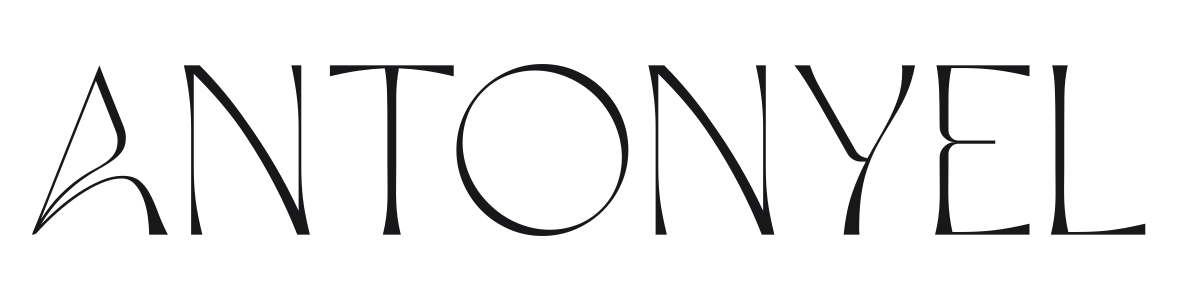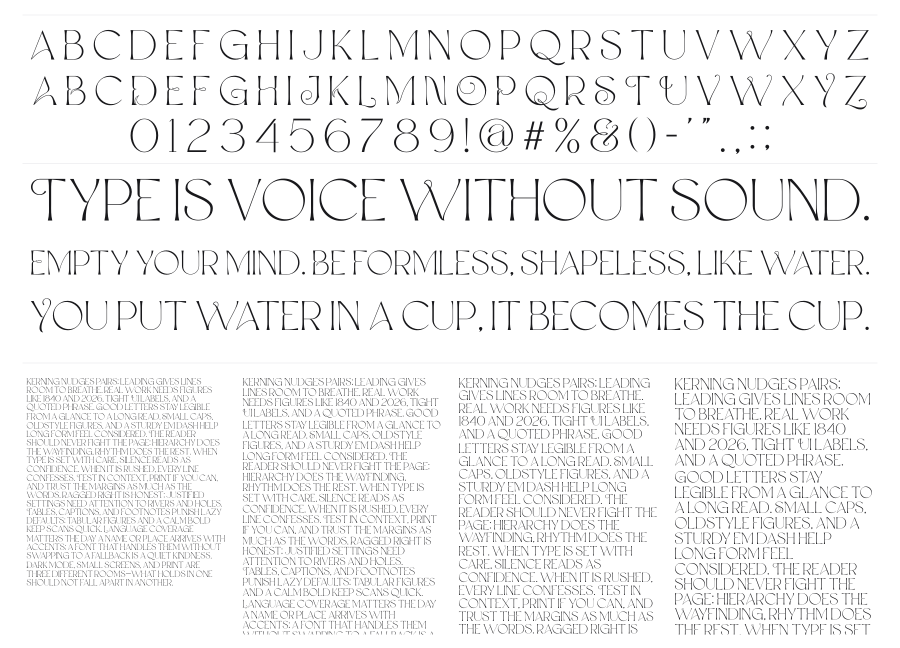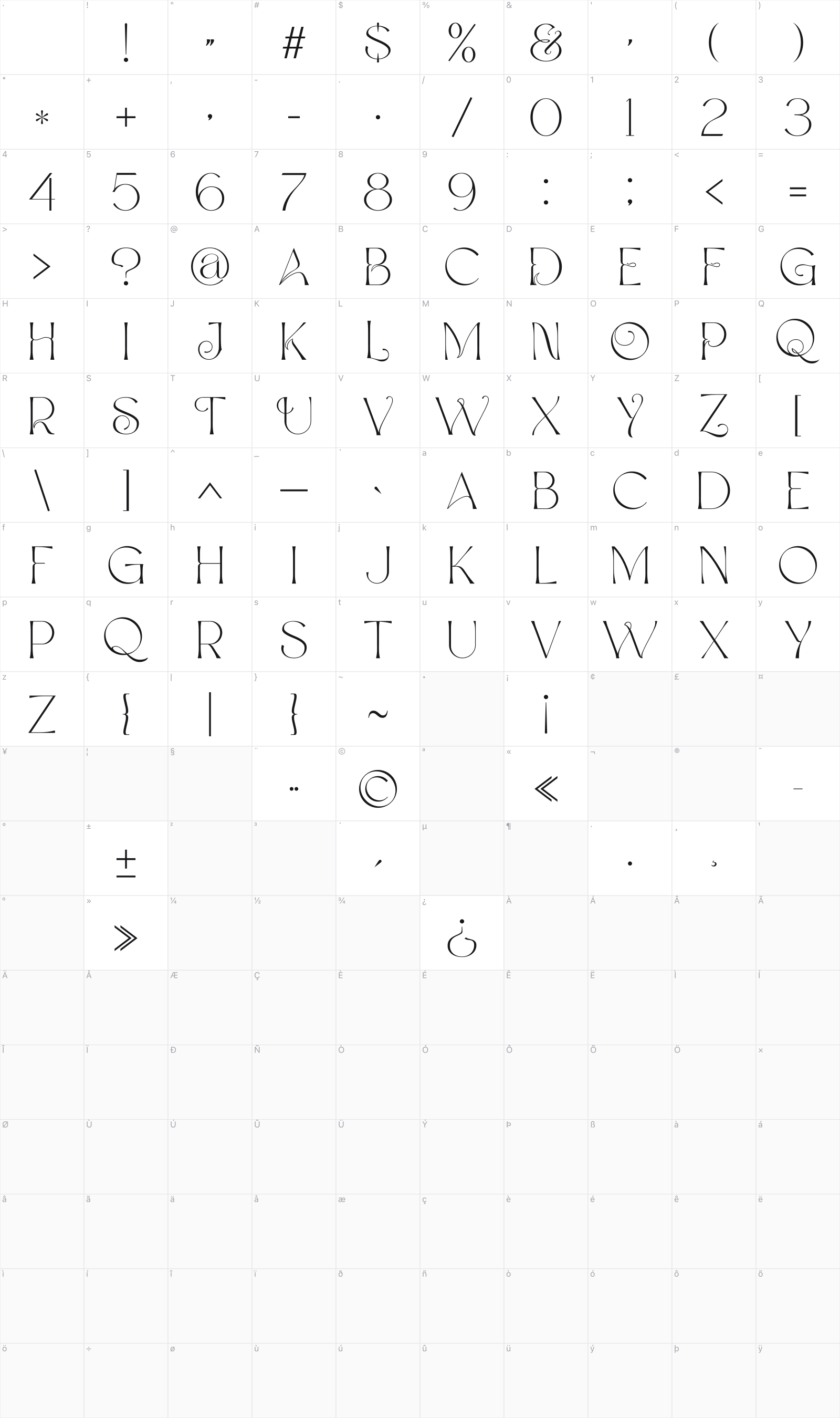
Antonyel
Antonyel is a tall, high-contrast display serif with hairline strokes, spurred serifs, and a distinctly editorial presence. The extreme weight contrast between stems and hairlines gives it a refined, fashion-forward character reminiscent of Art Deco and Didone traditions. Works best at large sizes where the delicate thin strokes can breathe.